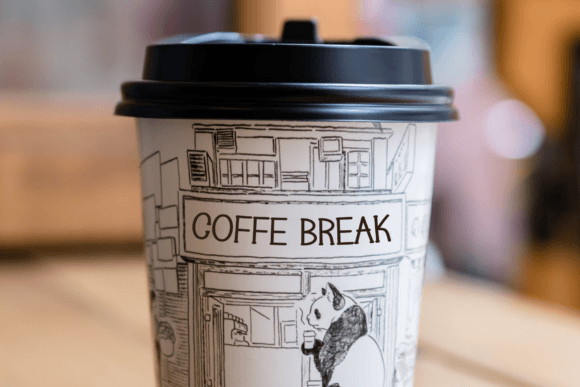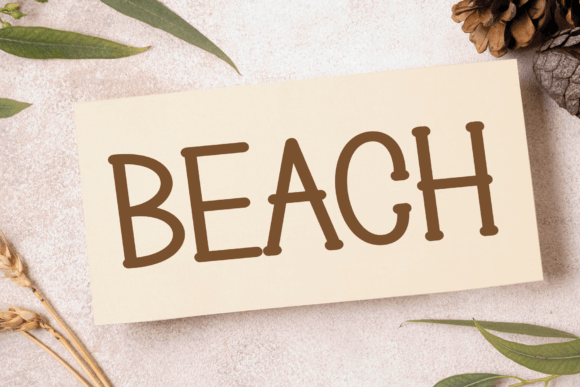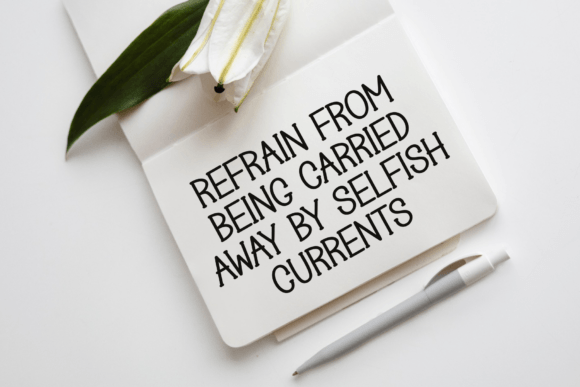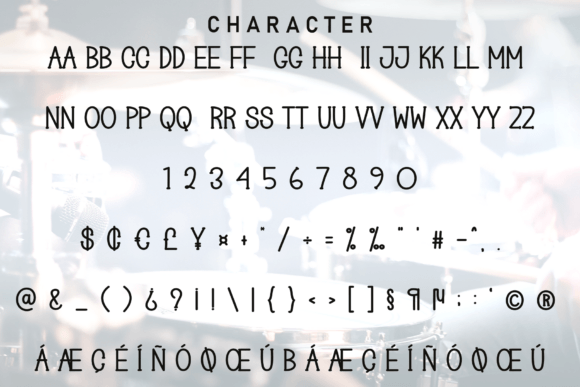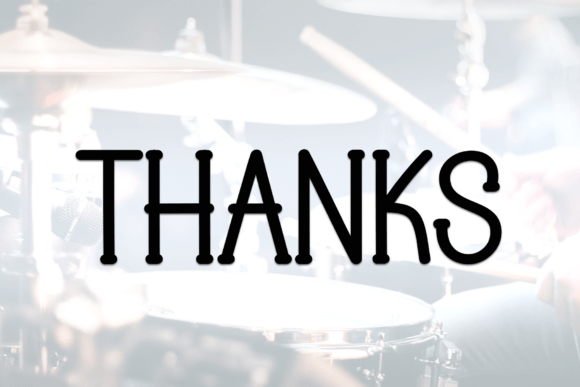
Introducing Drummer Font: Adding a Playful Punch to Your Designs
Are you tired of using the same old fonts in your designs? Look no further than Drummer Font, a playful and energetic handwritten font that’s sure to make your text stand out. With its bold, marker-like strokes and casual, sporty vibe, Drummer Font is perfect for designers and crafters looking to add a fun and lively touch to their projects.
What is Drummer Font?
Drummer Font is a unique and eye-catching font that has a playful, handwritten feel. It’s designed to look like it was drawn with a bold marker, giving it a fun and energetic vibe. The font has a casual, sporty style that’s perfect for making a statement and adding some personality to your text.
Key Features of Drummer Font
- Playful and Handwritten: Drummer Font has a playful, handwritten feel that’s perfect for adding a personal touch to your designs.
- Bold and Marker-Like: The font has bold, marker-like strokes that give it a fun and energetic vibe.
- Casual and Sporty: Drummer Font has a casual, sporty style that’s perfect for making your text stand out.
- Easy to Read: Despite its playful feel, Drummer Font is easy to read and can be used for both headings and body text.
Uses for Drummer Font
Drummer Font is a versatile font that can be used for a wide range of design projects. Here are a few ideas to get you started:
- Signs and Posters: Drummer Font is perfect for creating eye-catching signs and posters that need to grab attention.
- Social Media Graphics: Use Drummer Font to add a fun and playful touch to your social media graphics, such as Facebook posts and Instagram stories.
- Crafting and Scrapbooking: Drummer Font is a great choice for crafters and scrapbookers who want to add a personal touch to their projects.
- Branding and Packaging: Drummer Font can be used to create bold and eye-catching branding and packaging designs that stand out on store shelves.
Tips for Using Drummer Font
Here are a few tips for using Drummer Font in your designs:
- Use it for Headings: Drummer Font is perfect for headings and titles, where its bold and playful feel can really make an impact.
- Pair it with Other Fonts: Drummer Font pairs well with other fonts, such as sans-serif fonts like Arial or Helvetica. Experiment with different combinations to find the one that works best for your design.
- Experiment with Colors: Drummer Font looks great in a variety of colors, from bright and bold to more muted and pastel shades.
Drummer Font is a fun and energetic font that’s perfect for designers and crafters who want to add a playful touch to their projects. With its bold, marker-like strokes and casual, sporty vibe, Drummer Font is sure to make your text stand out and leave a lasting impression. So why not give it a try and see how it can add some excitement to your designs?